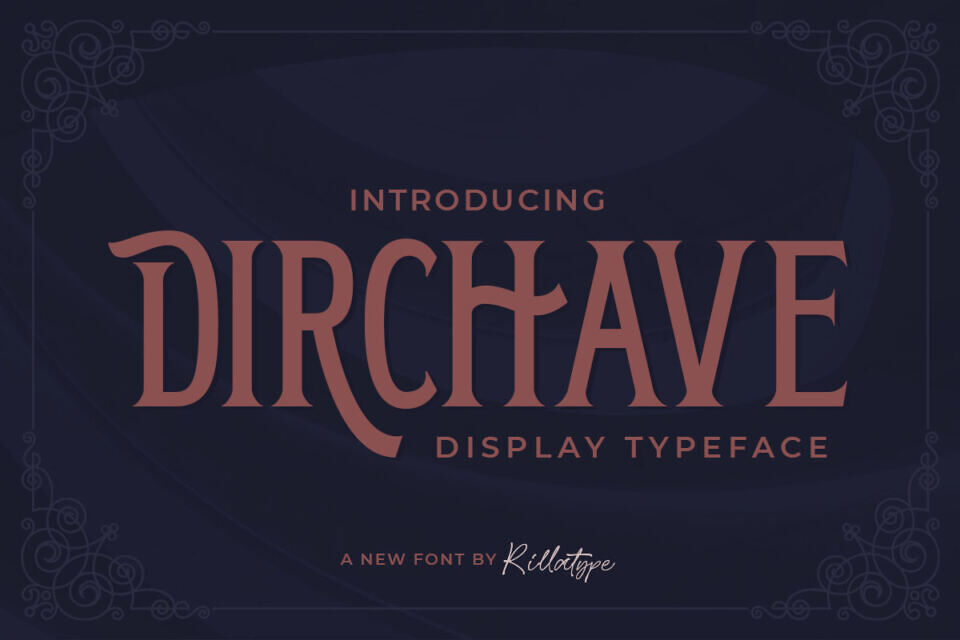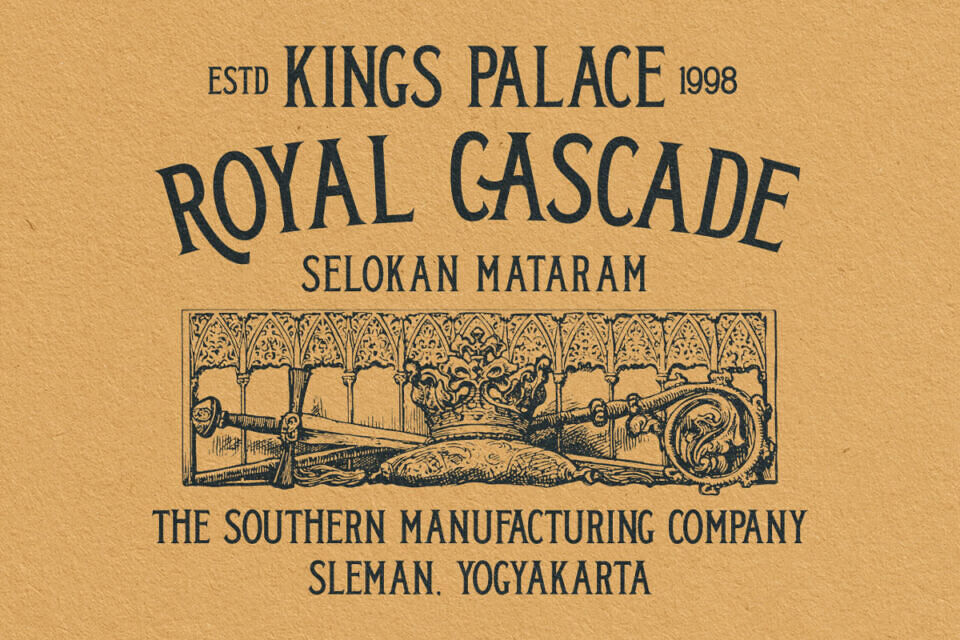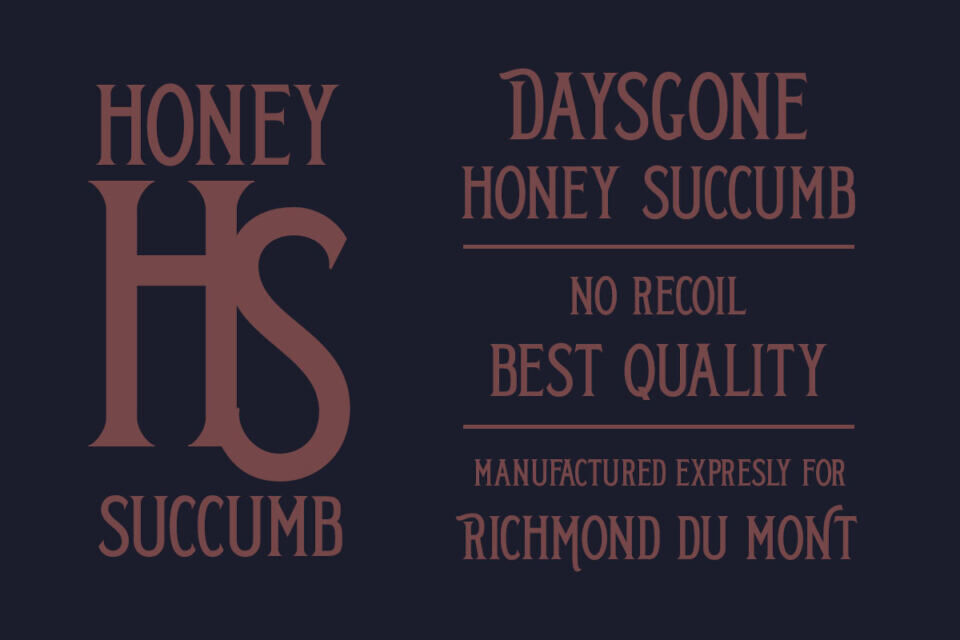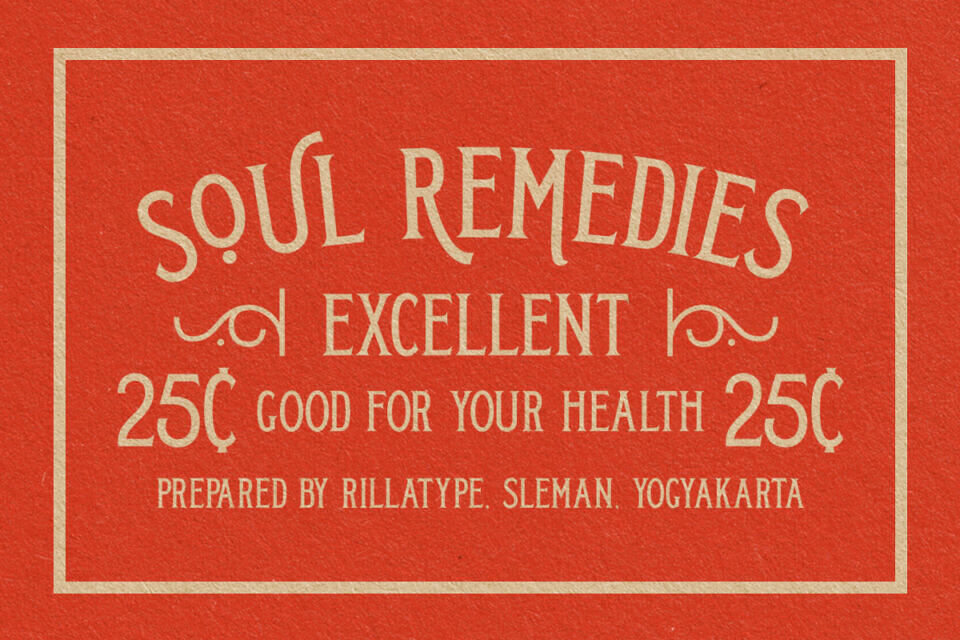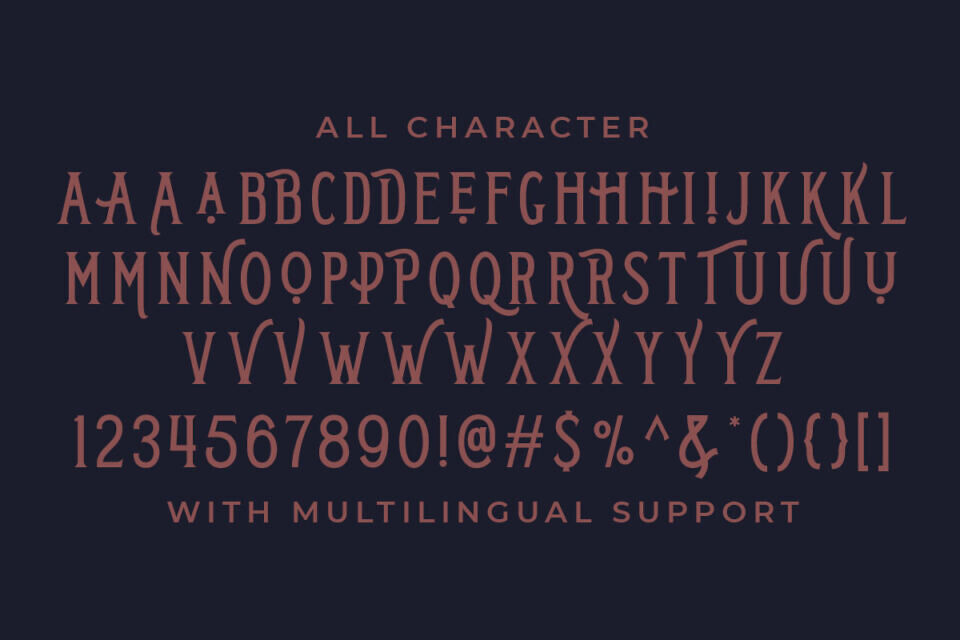
Dirchave Font
Dirchave is a fierce, vintage styled and thick lettered serif font. Whether you are looking for a font to fit apparel, packaging, branding, labels and so on, you will find Dirchave to a wonderful fit.